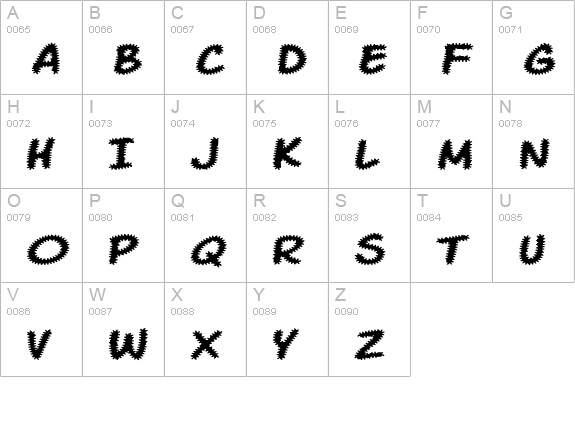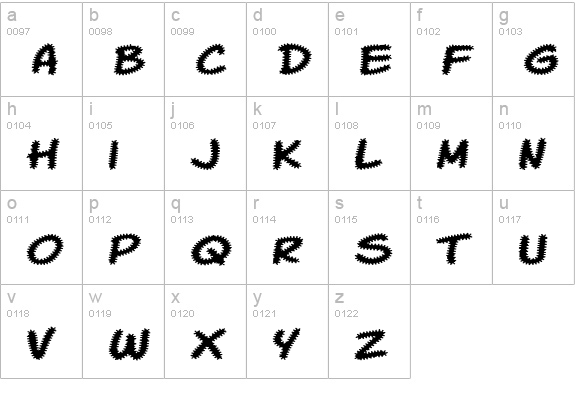
Komika Tread is a bold and eye-catching font that exudes a modern and edgy vibe. With its unique and intricate design, this font is perfect for making a statement in any project. The sharp angles and dynamic lines give off a sense of energy and movement, making it ideal for use in headings, logos, and other design elements that require a touch of excitement. What sets Komika Tread apart is not just its striking appearance, but also the fact that it is available for free download at FontsMarket.com. This means that you can easily access and use this standout font in your creative endeavors without any cost involved. Whether you're designing a poster, creating a website, or working on a branding project, Komika Tread is sure to add a touch of boldness and style to your work. Download it today and let your creativity shine with this exceptional font.